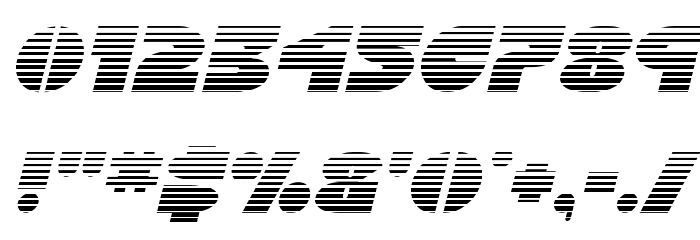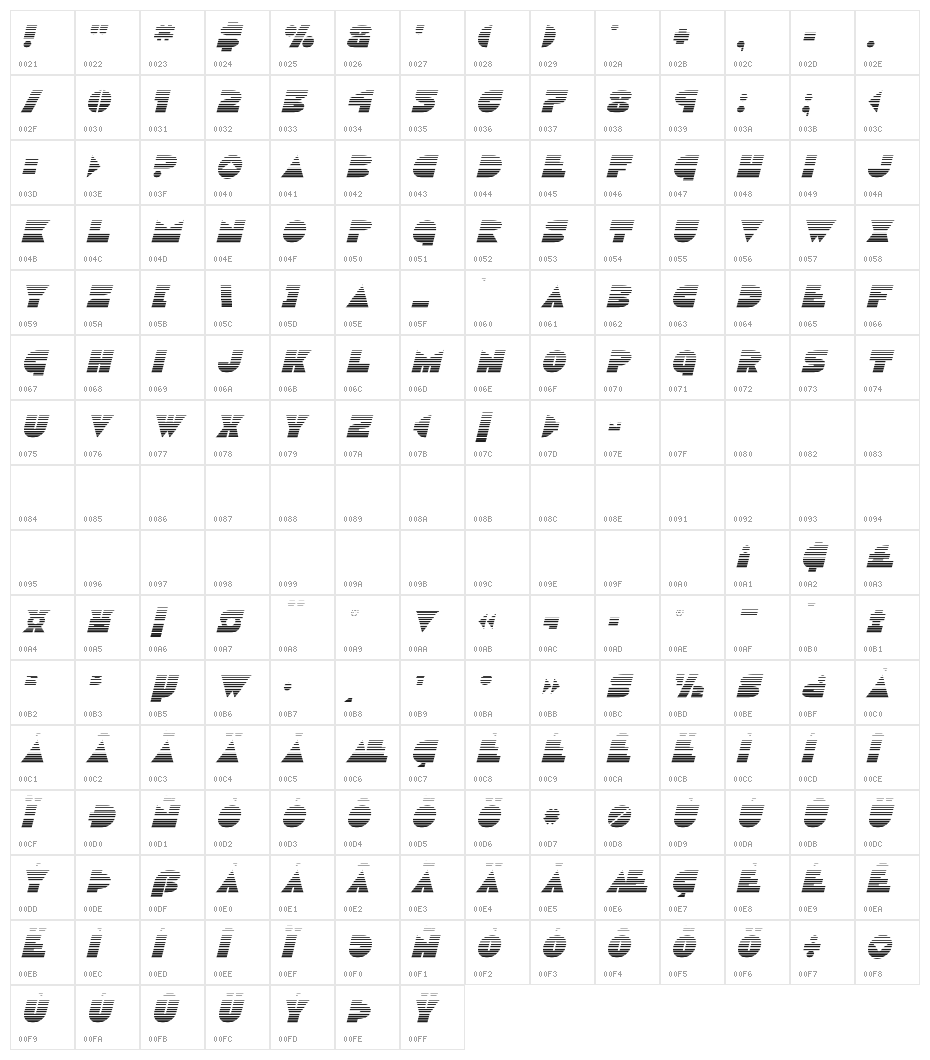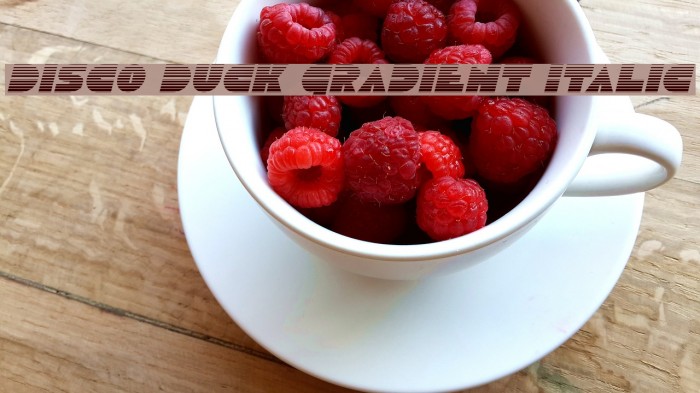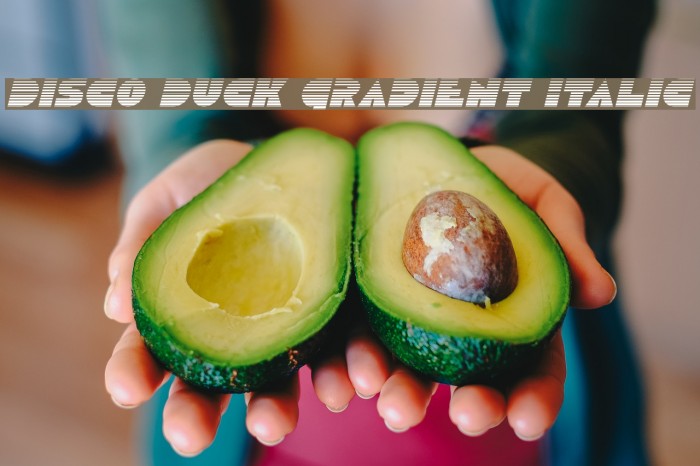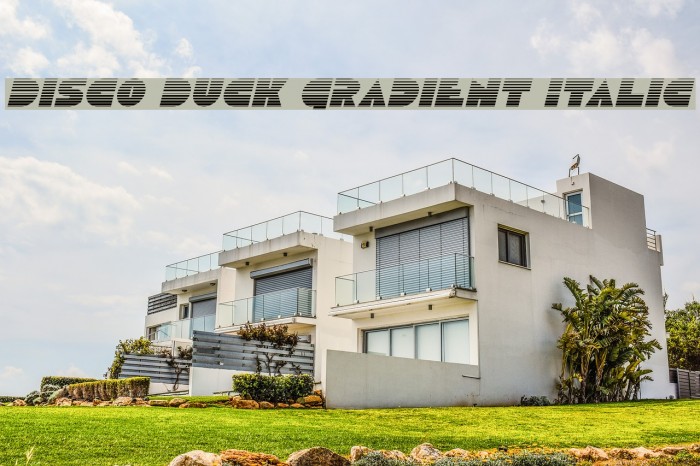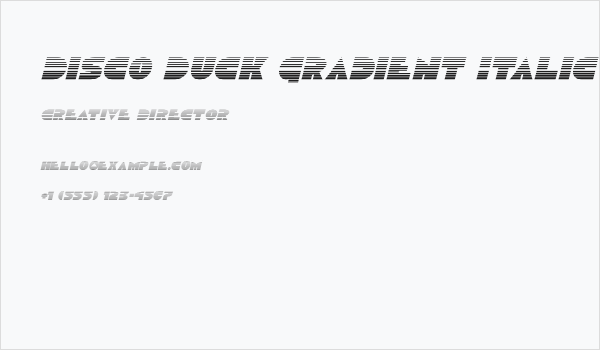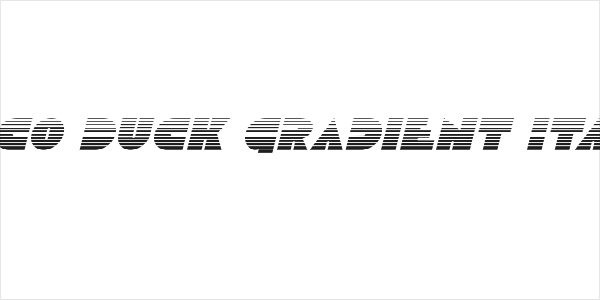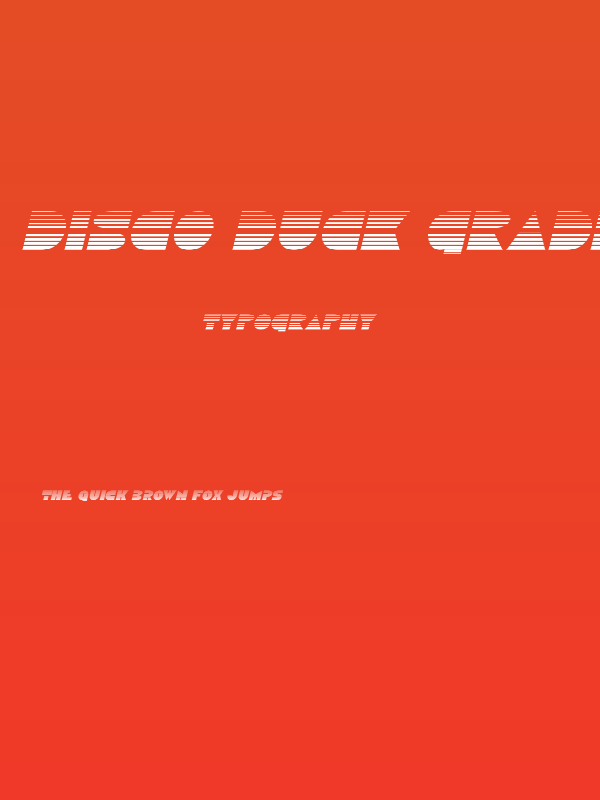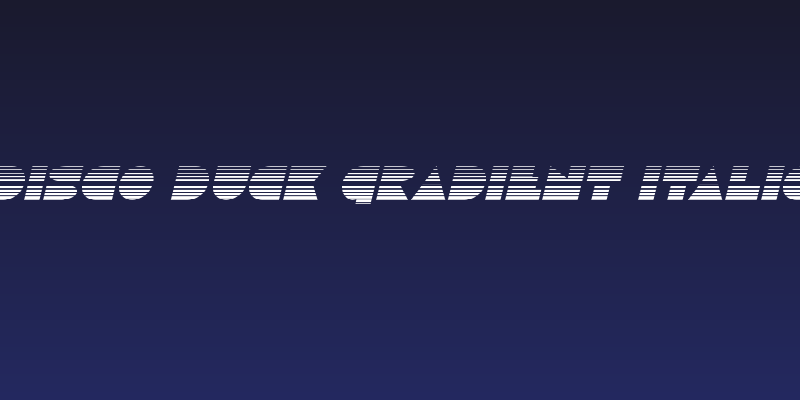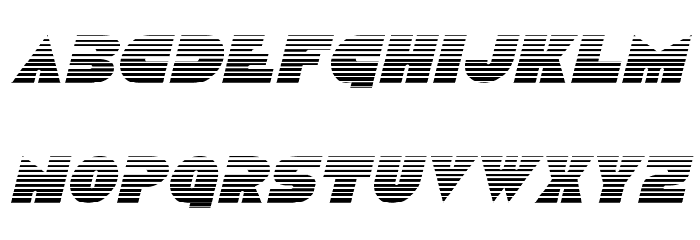
Disco Duck Gradient Italic Font
Disco Duck Gradient Italic Description
This font features a bold, italicized style with a unique gradient effect created by horizontal lines that form each character. The design is modern and eye-catching, making it ideal for projects that require a dynamic and energetic look. The characters are wide and have a strong presence, with a consistent slant that adds to the overall sense of movement. The spacing between characters is tight, enhancing the compact and cohesive appearance of the text. The high contrast between the thick lines and the spaces between them gives the font a striking and memorable aesthetic.
| Proposed Projects | Ideal for music album covers, event posters, and branding for modern, energetic products. |